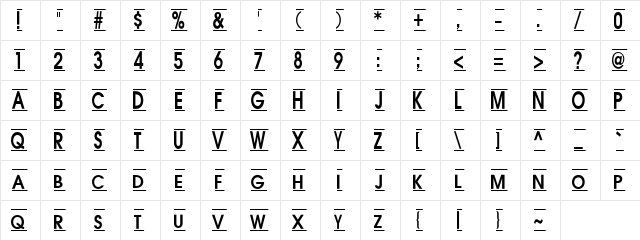
AC2-Banner1 Regular
Design Context for AC2-Banner1 Typeface
AC2-Banner1 offers clean, dependable letterforms without strong stylistic allegiance, making it a practical choice for designers who need flexibility.
Pro Tip: Use AC2-Banner1 in both headline and body roles to test its range before committing to a single application.